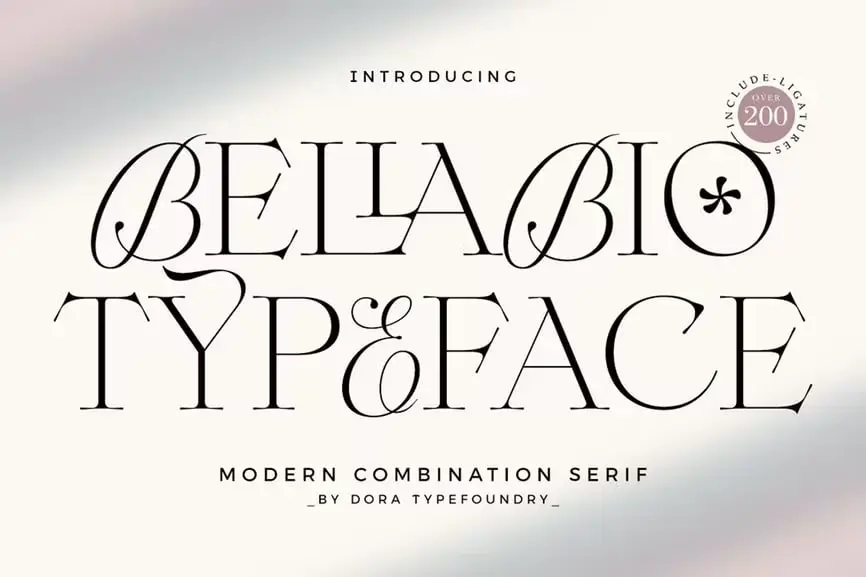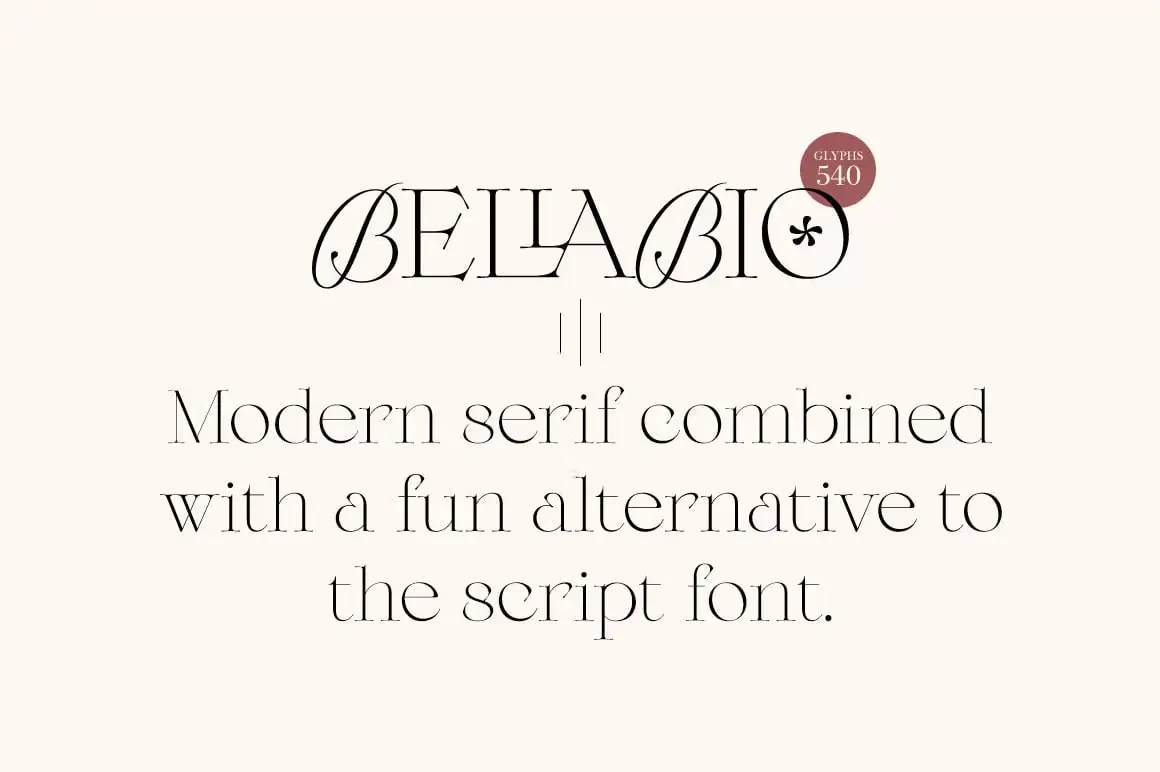
Bellabio Typeface
The Bellabio Typeface is a beautifully crafted font that combines elegance with modernity. Designed for versatility, this typeface is perfect for a wide range of applications, from branding and logos to web and print designs.
• Style: Serif
• Ideal for creating elegant branding materials
• Use for headlines and body text in print and digital formats
• Perfect for invitations, posters, and marketing materials